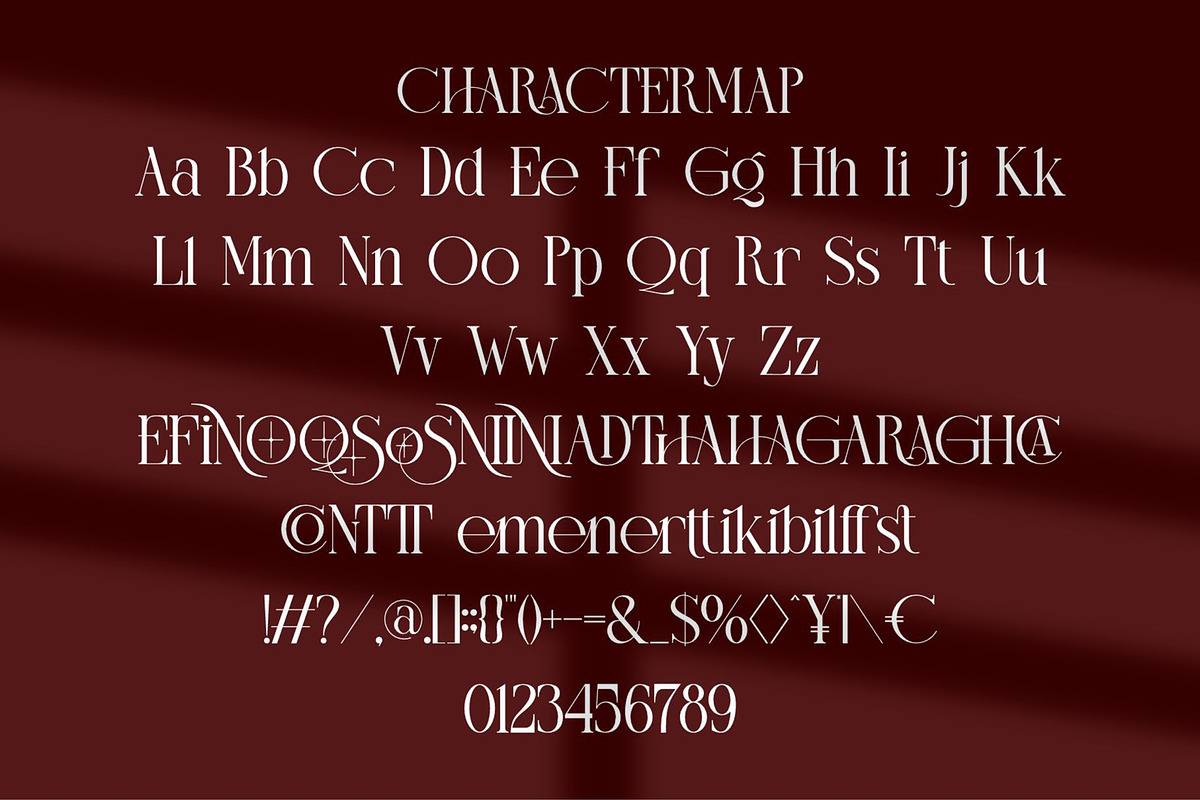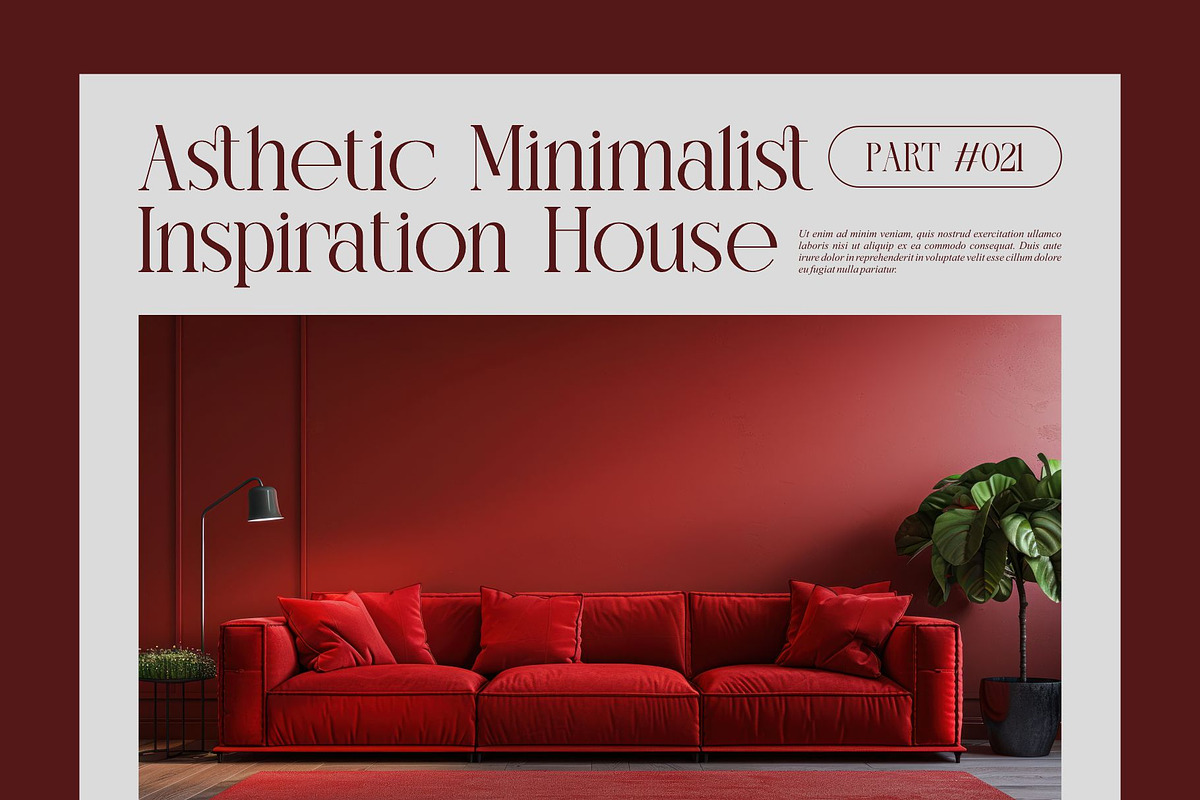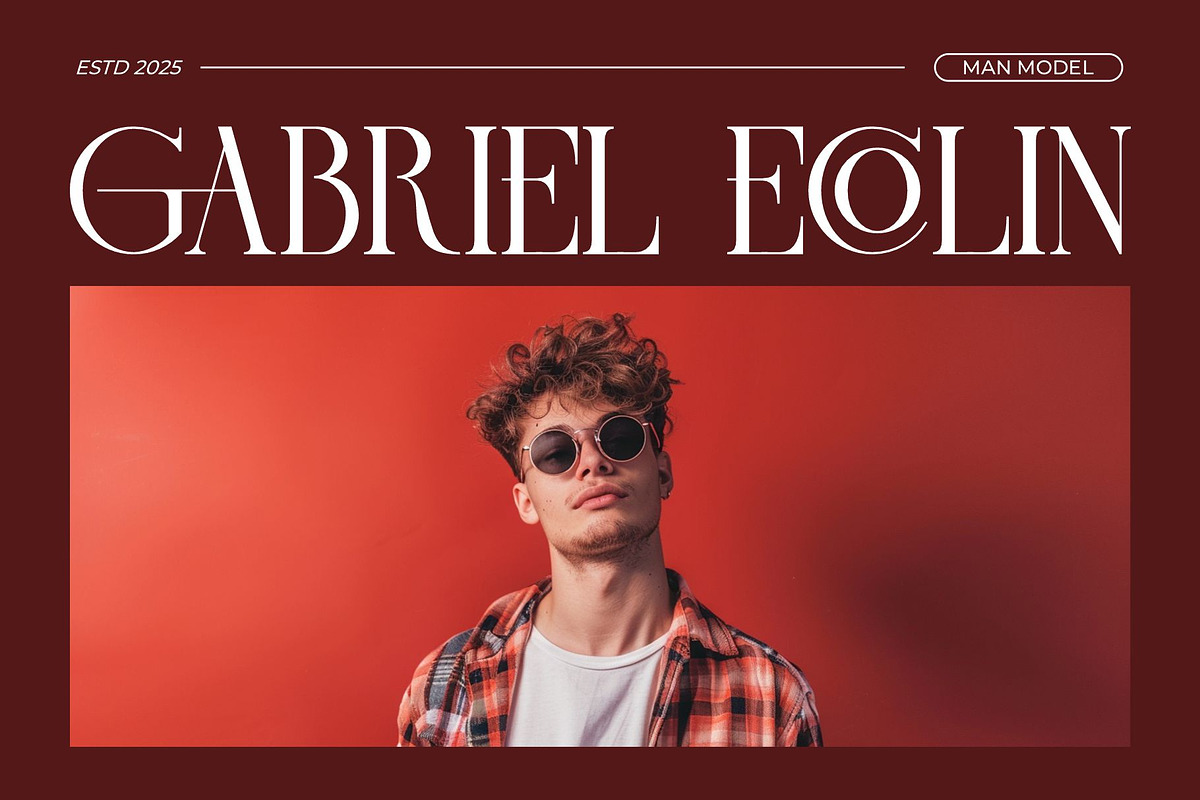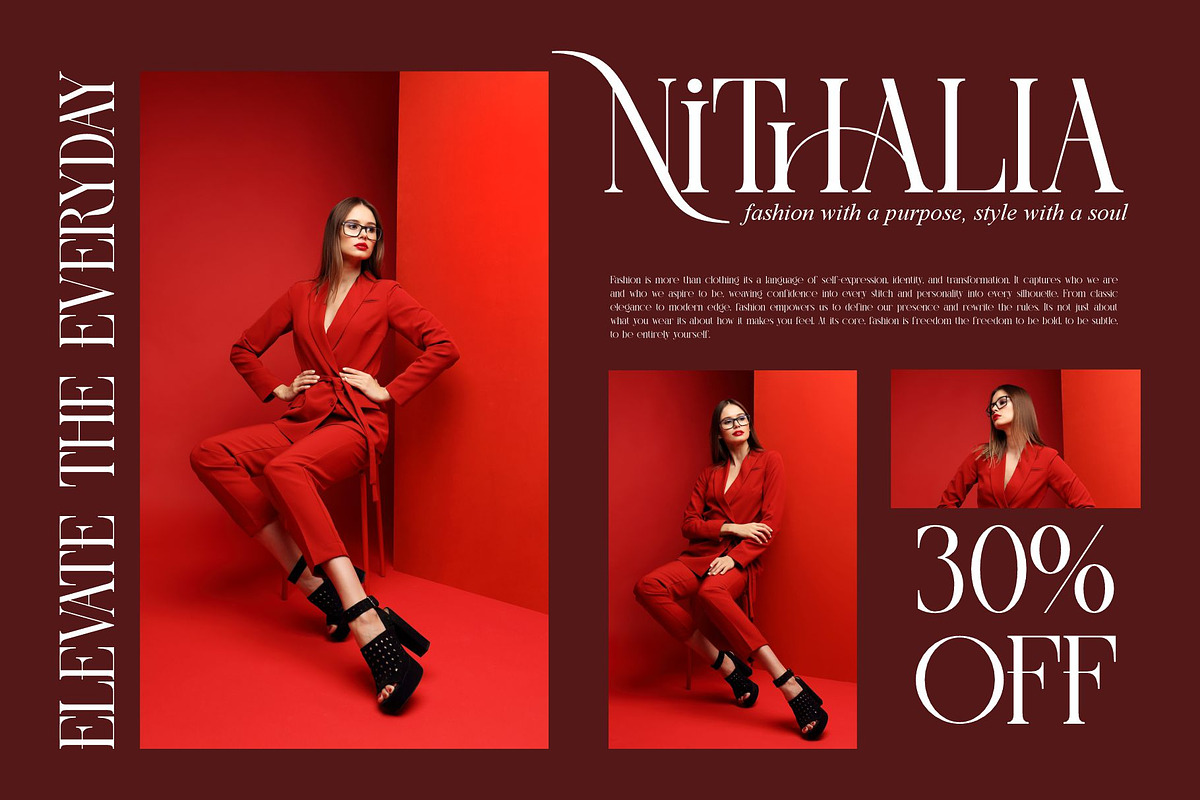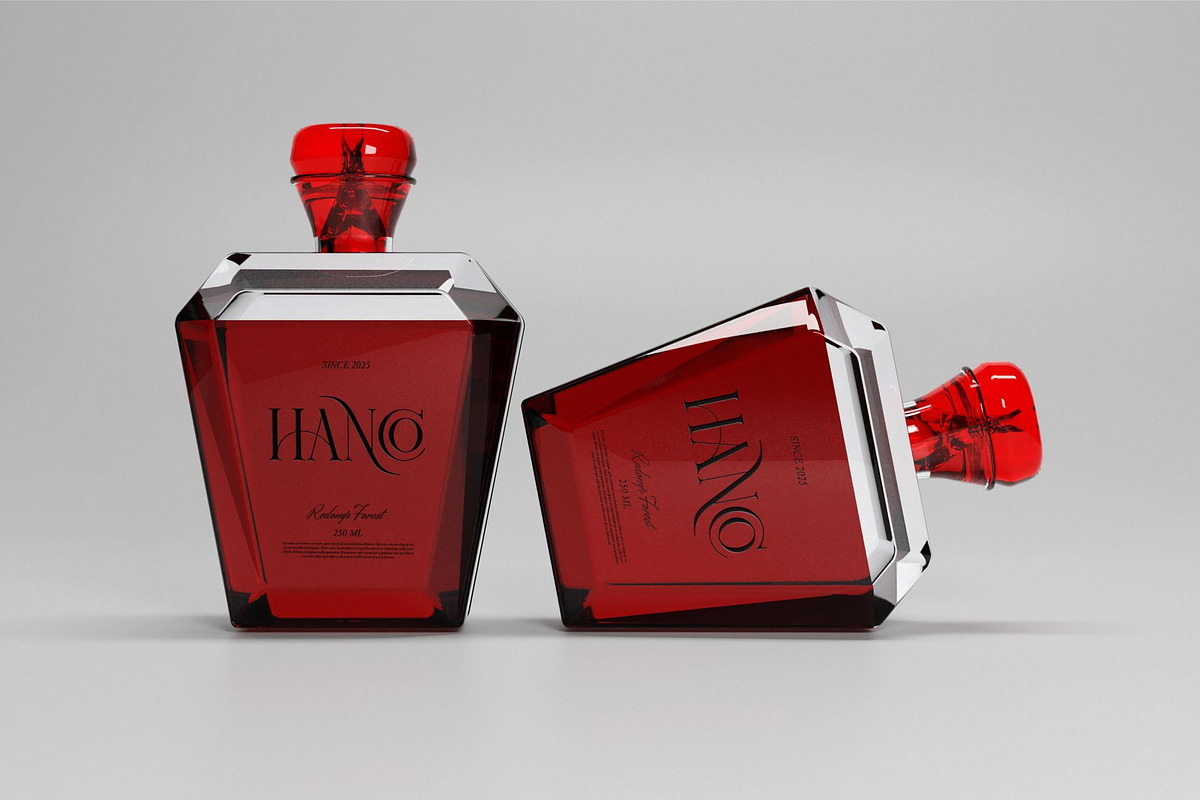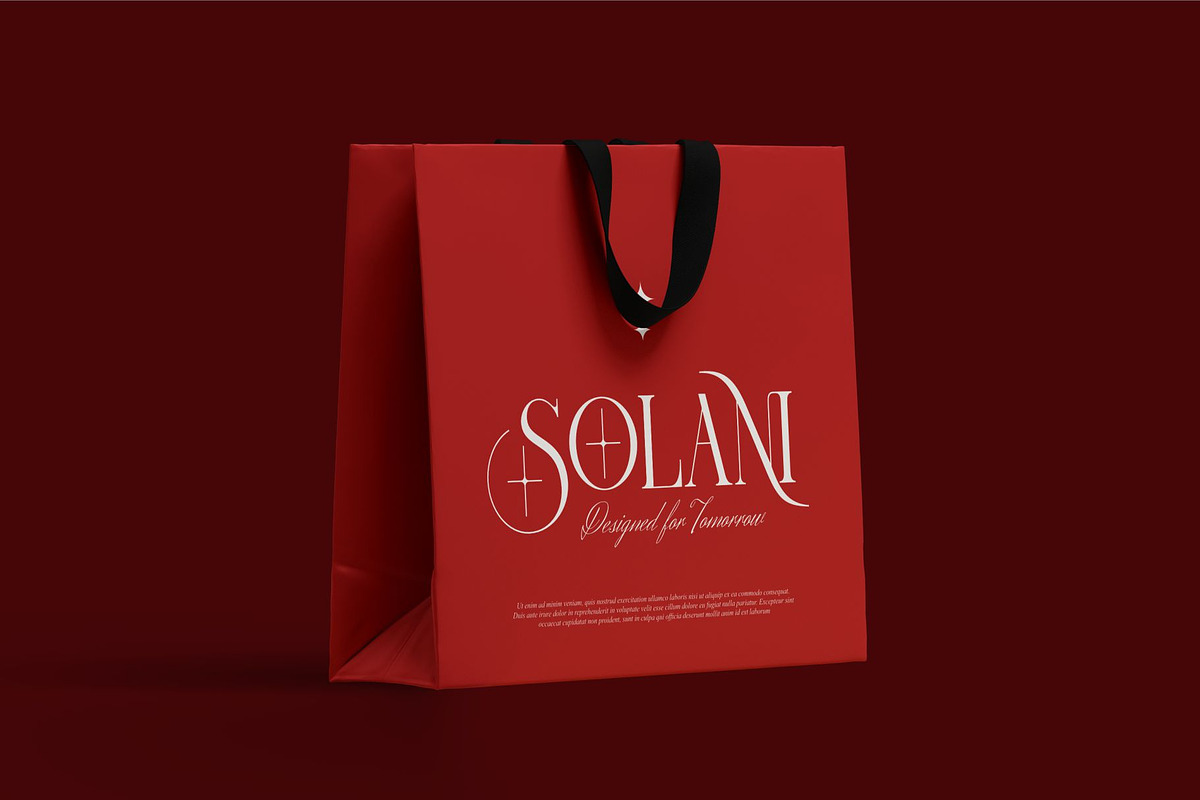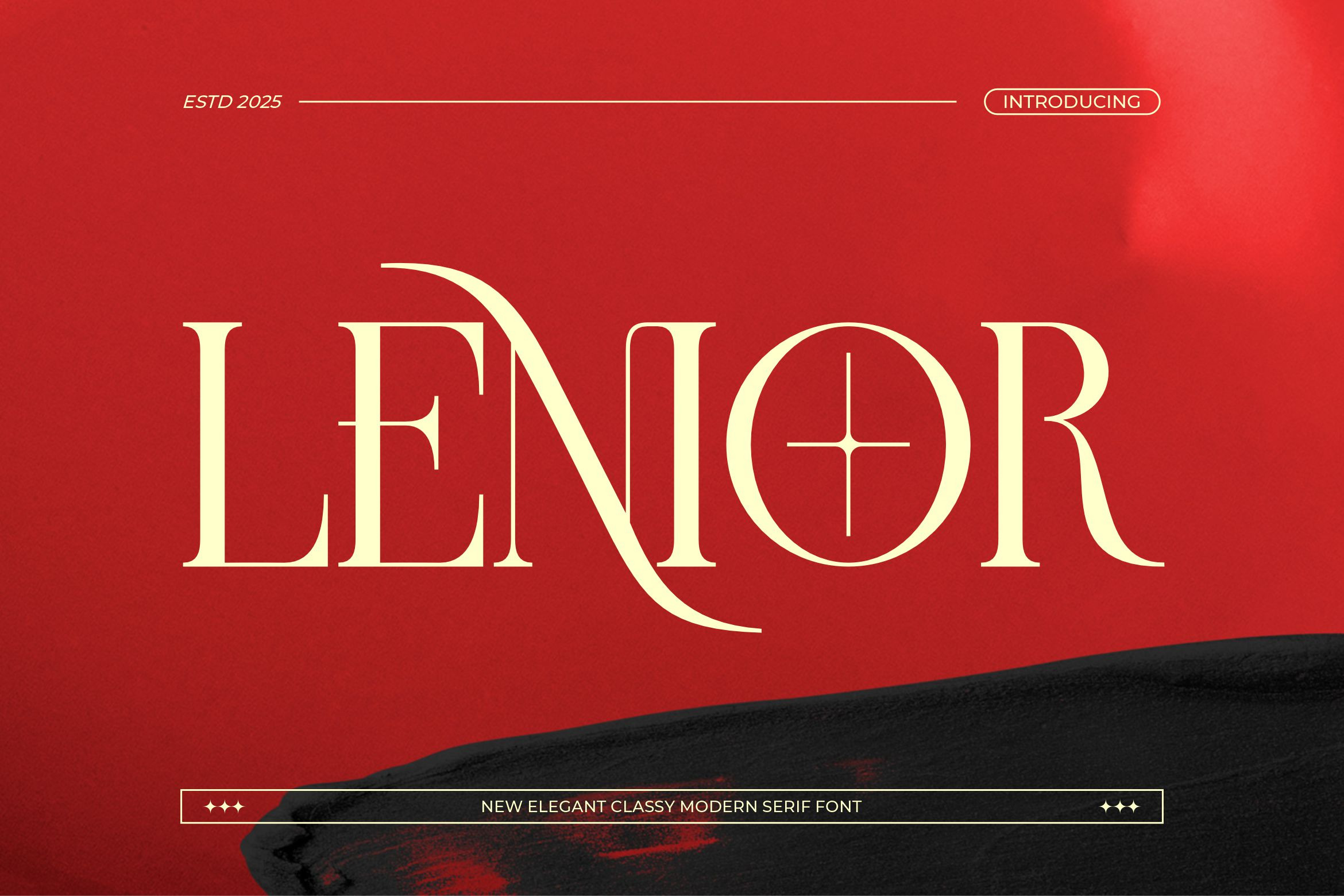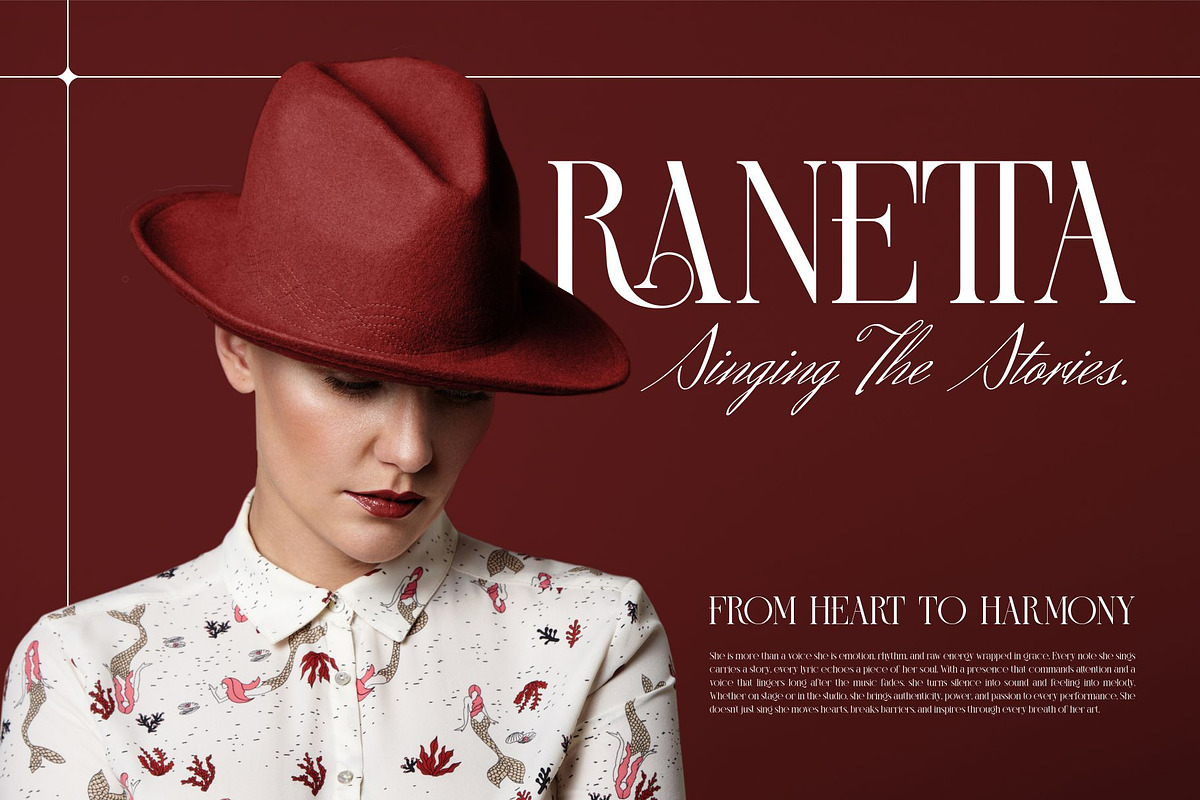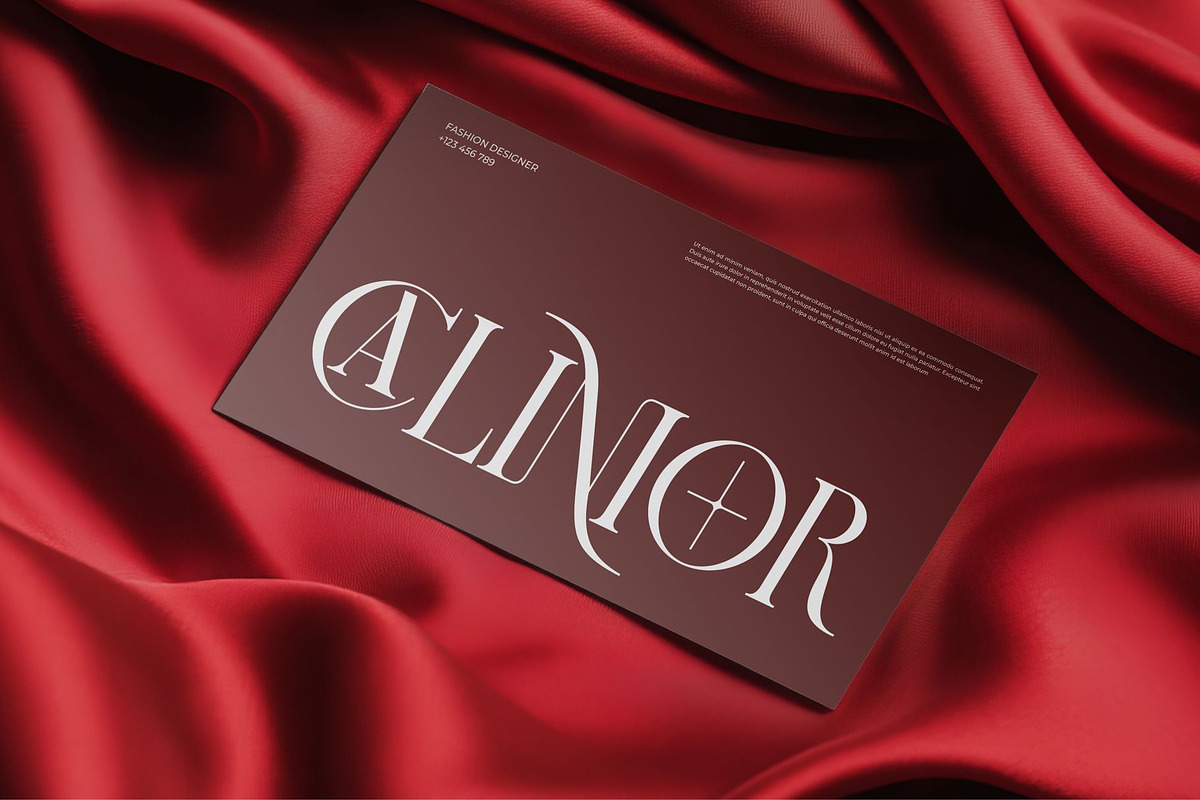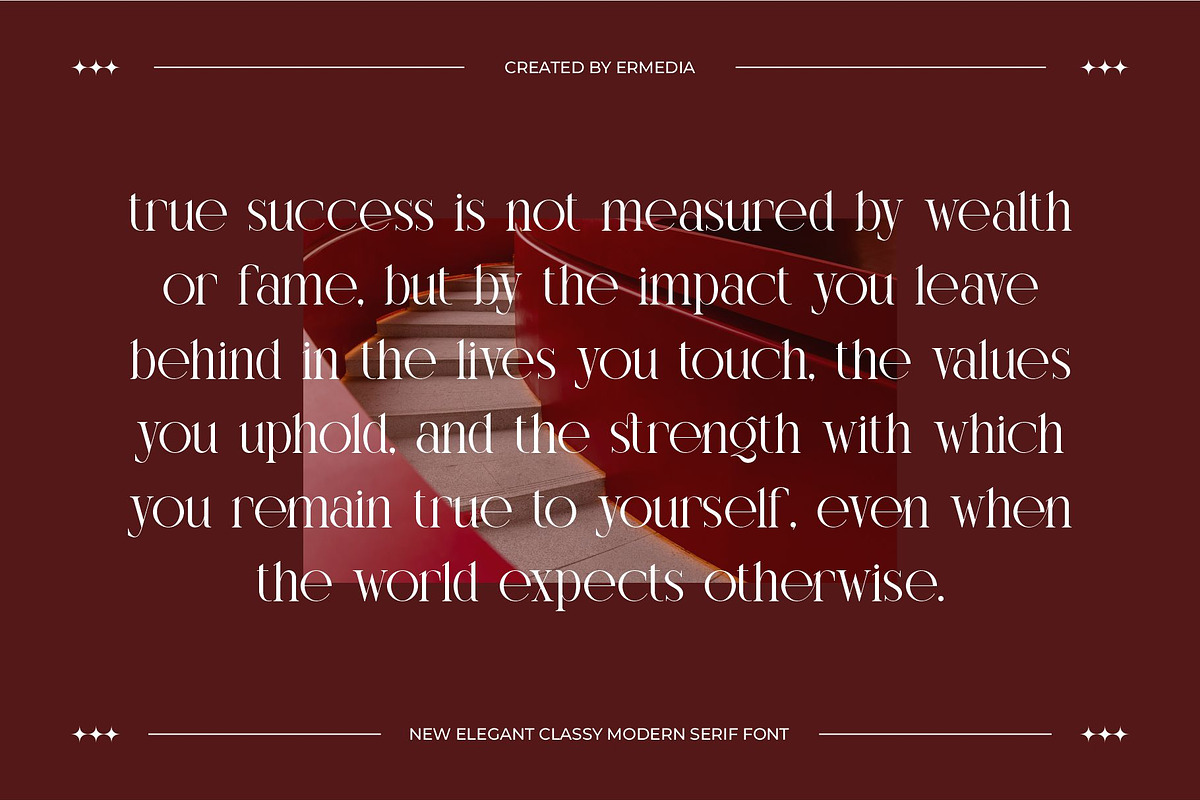
Lenior || Modern Classy Serif Font
Lenior Serif is a modern and classy font type for all branding and logo designs. This modern and classy Serif font has a beautiful character. This font is suitable for invitation card designs, cool logos, movie titles, movie names, business cards, book titles, brand names, and various other designs. Lenior Serif is a smooth serif font that exudes sophistication and the moment. Its stylish ligatures make this font a perfect partner for any project.